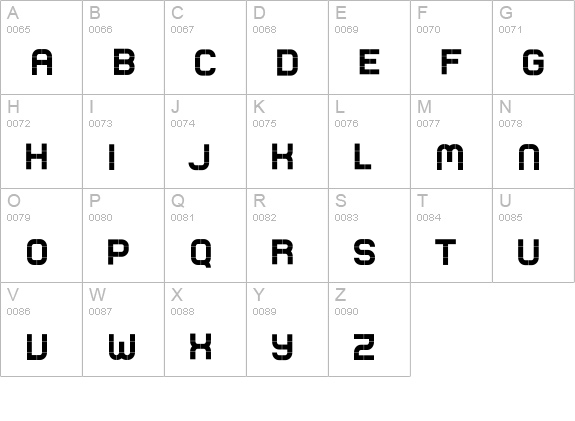
Comsat-Fat Font Details
Comsat-Fat is a bold and eye-catching display font that demands attention with its strong and impactful presence. This font exudes confidence and modernity, making it perfect for headlines, posters, and other design projects that require a bold statement. The thick lines and rounded edges of Comsat-Fat give it a friendly and approachable feel, while still maintaining a sense of authority. What makes Comsat-Fat even more appealing is that it is available for free download at FontsMarket.com. This means that designers and creatives can easily access this unique font and incorporate it into their projects without any cost. Whether you're working on a branding project, a social media graphic, or a website design, Comsat-Fat is sure to add a touch of boldness and style to your work. Download Comsat-Fat today and see how it can elevate your designs to the next level.